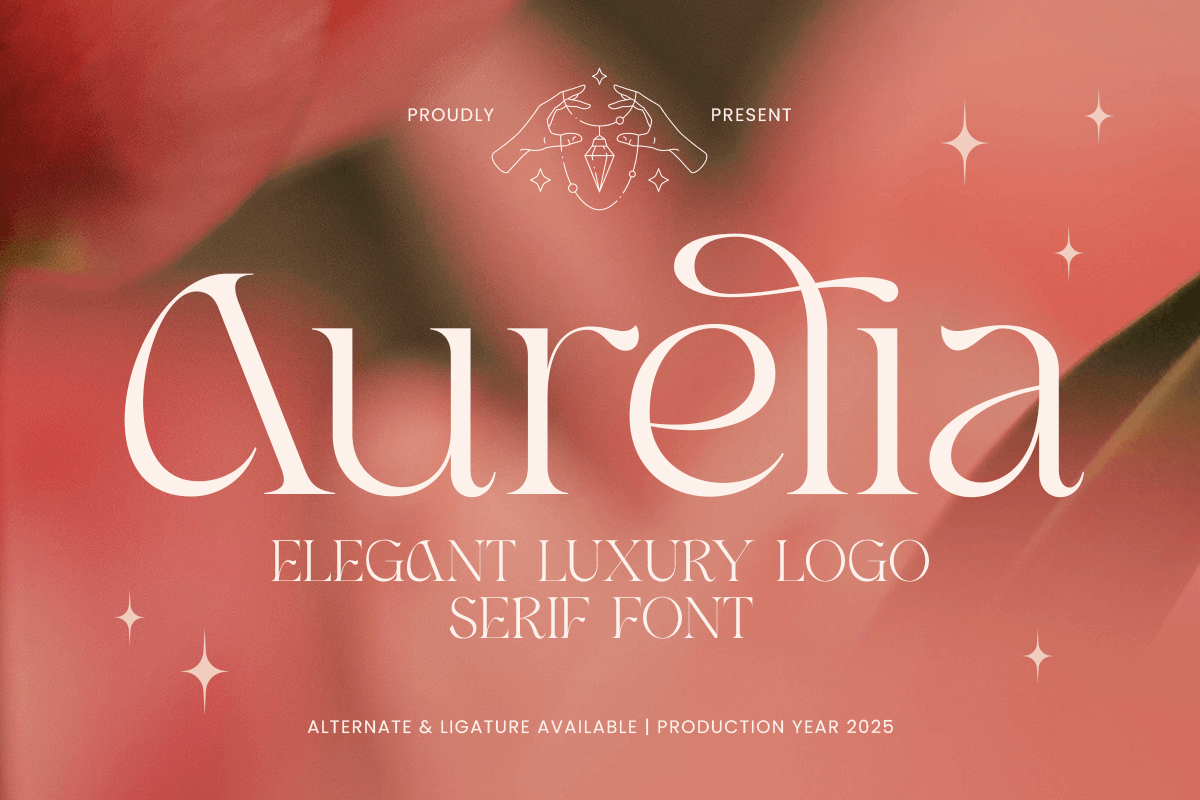
Aurelia
-Modern Logo Branding FontAurelia - Modern Logo Branding Font
Aurelia is an elegant luxury logo serif font designed for premium branding, logos, and high-end creative projects. Its refined and stylish letterforms provide a polished, professional, and luxurious appearance, ideal for fashion, lifestyle, and luxury brands.
With its sophisticated design, Aurelia ensures readability and elegance in both print and digital media, making it perfect for designers seeking a high-end serif typeface for branding and editorial purposes.
Aurelia – Elegant Luxury Logo Serif Font Features
Elegant and luxurious serif character set
Perfect for branding, logos, and premium designs
OpenType features for extra versatility